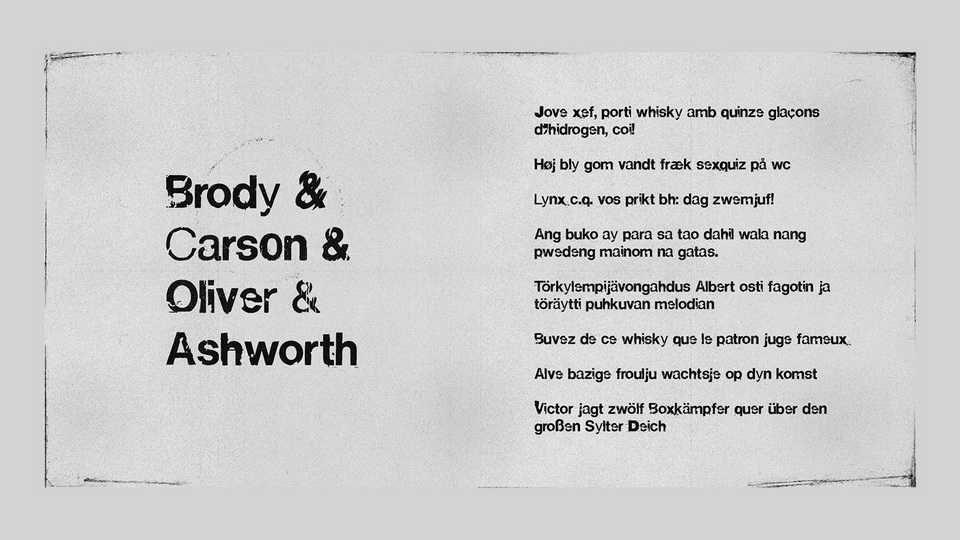
Download Swiss Grit font, a broken version of the Helvetica typeface, inspired by the work of the author’s 90s design heroes and a passion for Letraset typographic dry transfers.
Designer: Rafael Nascimento